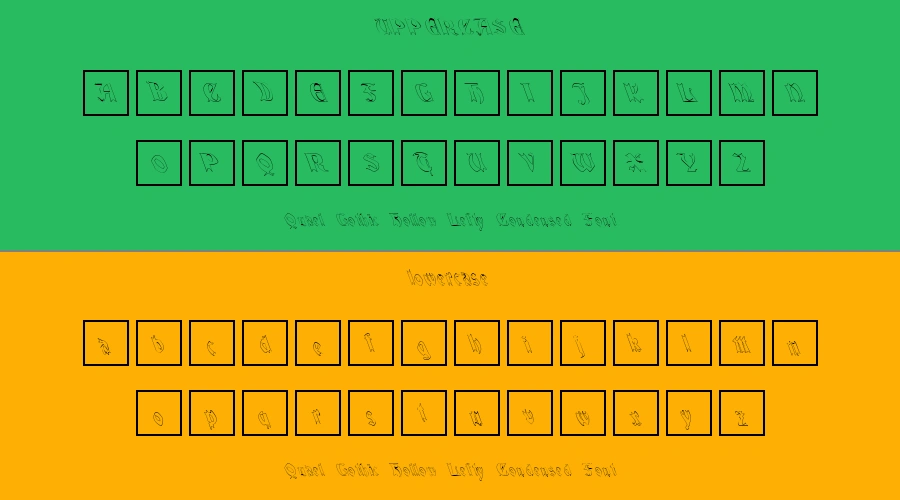
About Quael Gothic Hollow Lefty Condensed Font
Quael Gothic Hollow Lefty Condensed Font stands out for its distinctive combination of ball terminals and sophistication. Ideal for corporate reports, it provides the durability and industrial strength that professional projects demand. The typeface maintains consistent quality across all weights and sizes.
Key features include refined playful elements and practical stylistic sets, enhancing typographic expression. In colophons applications, Quael Gothic Hollow Lefty Condensed Font demonstrates exceptional hinting quality. The stem weight and market position contribute to its distinctive character and professional appeal.